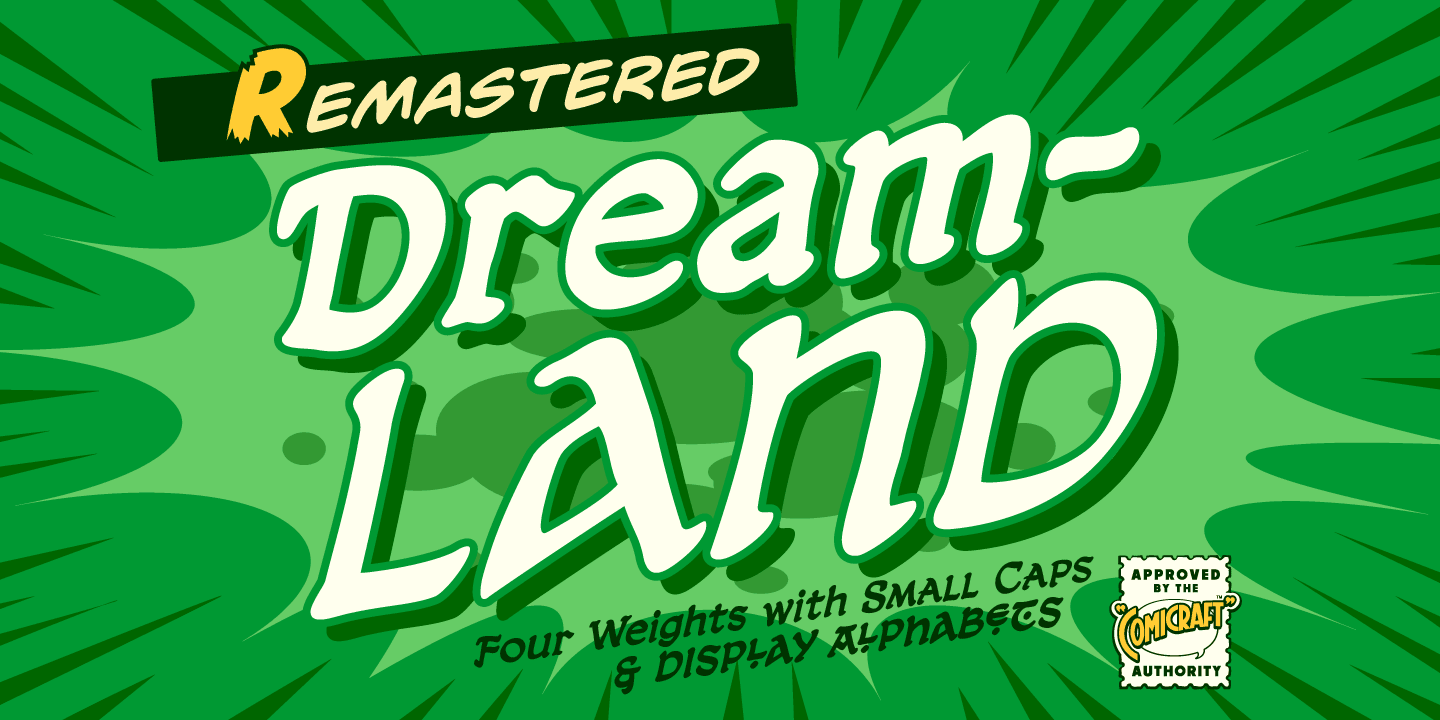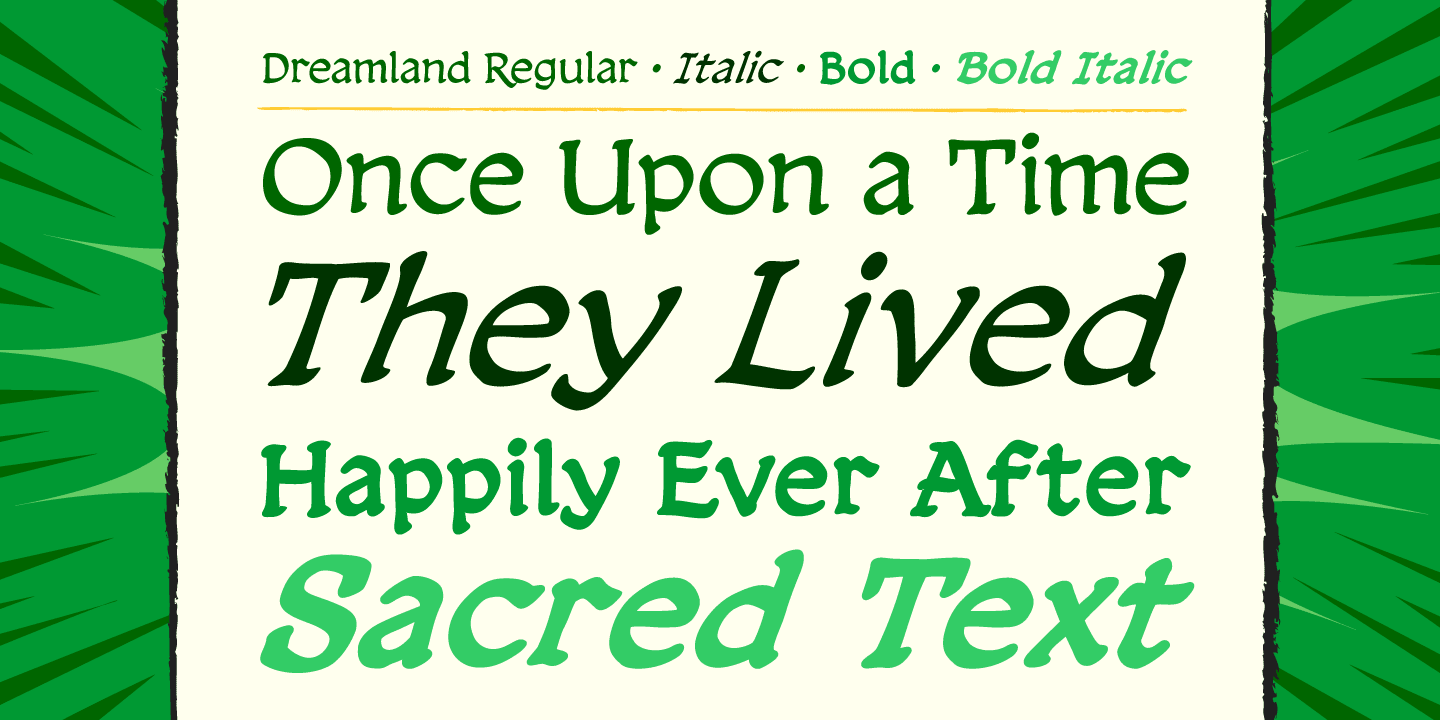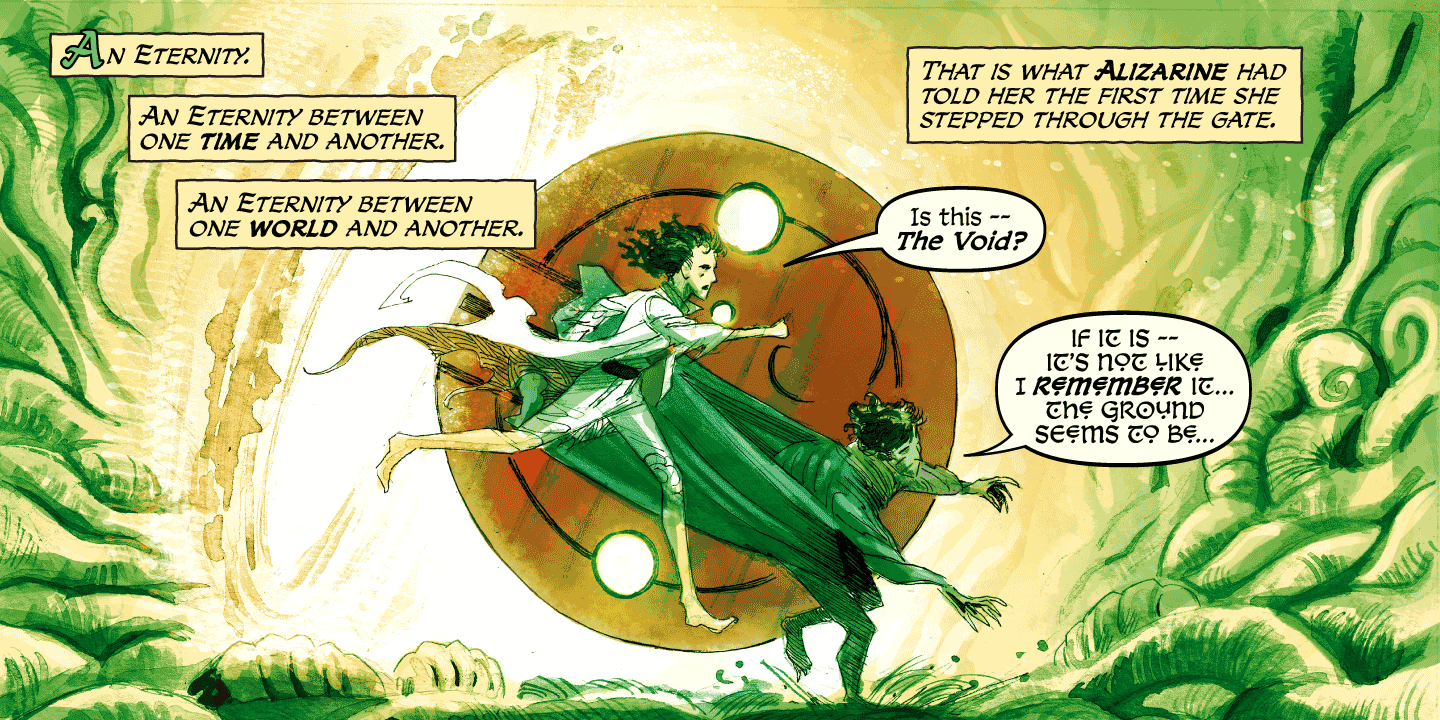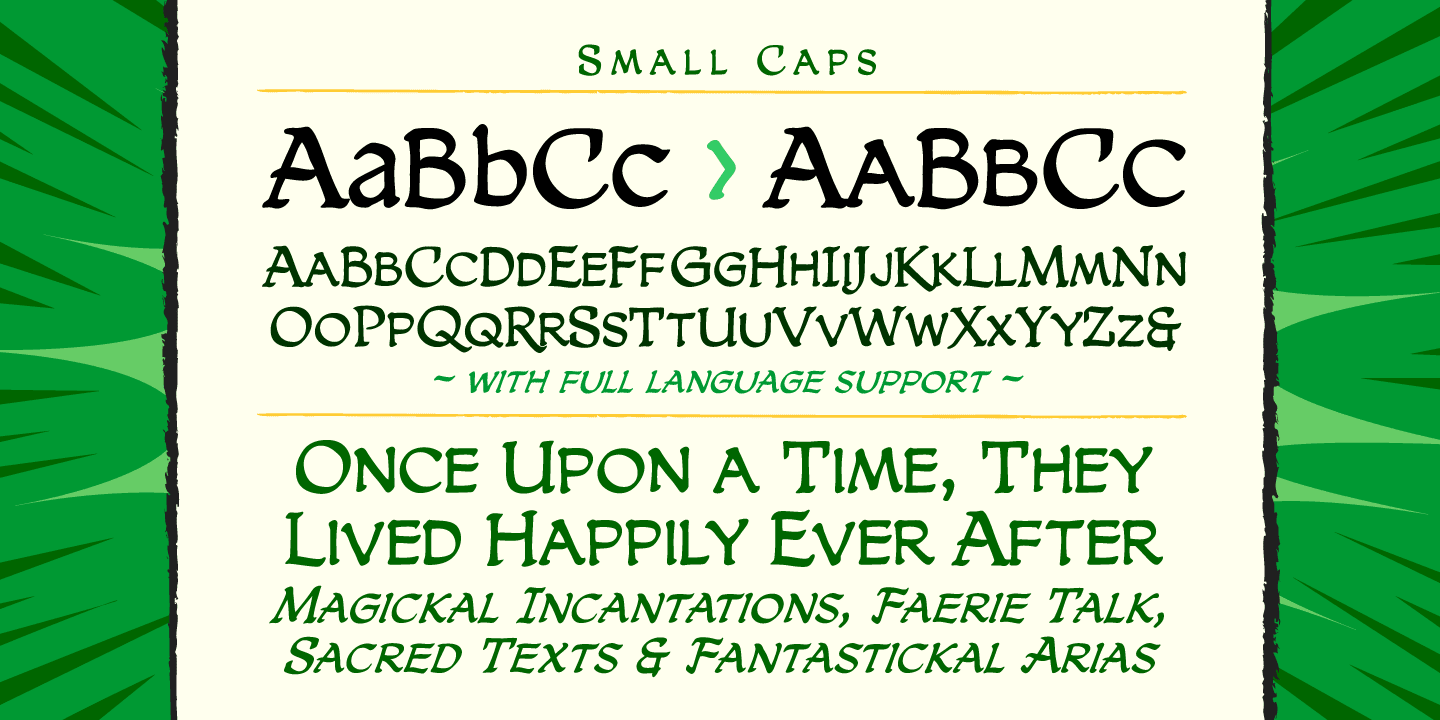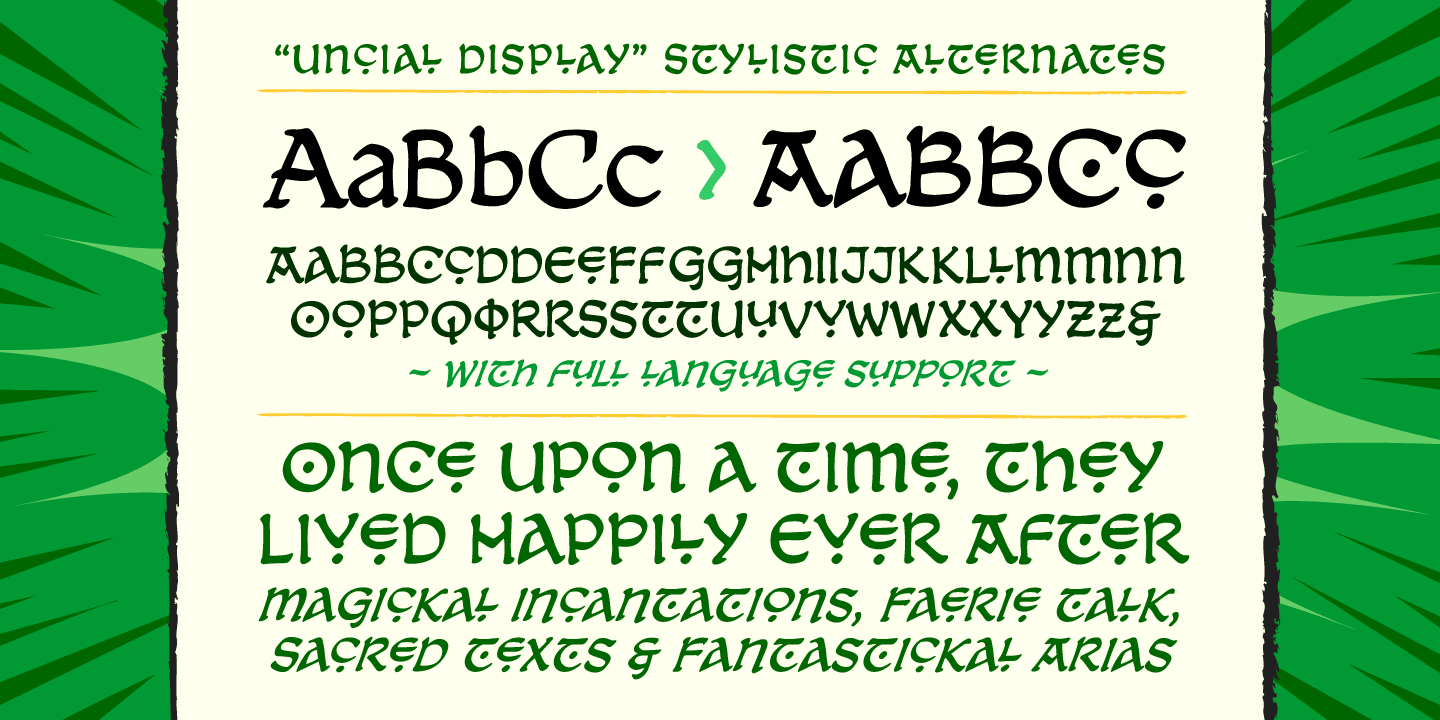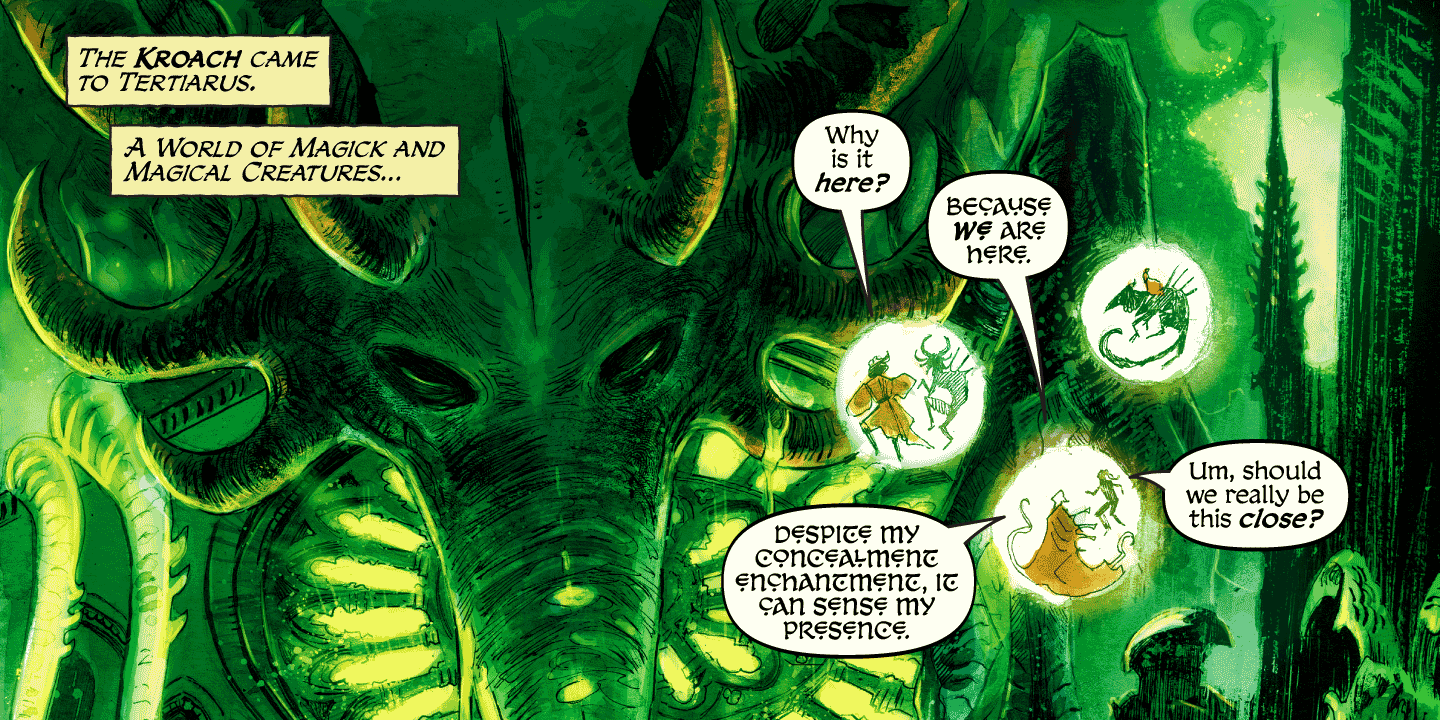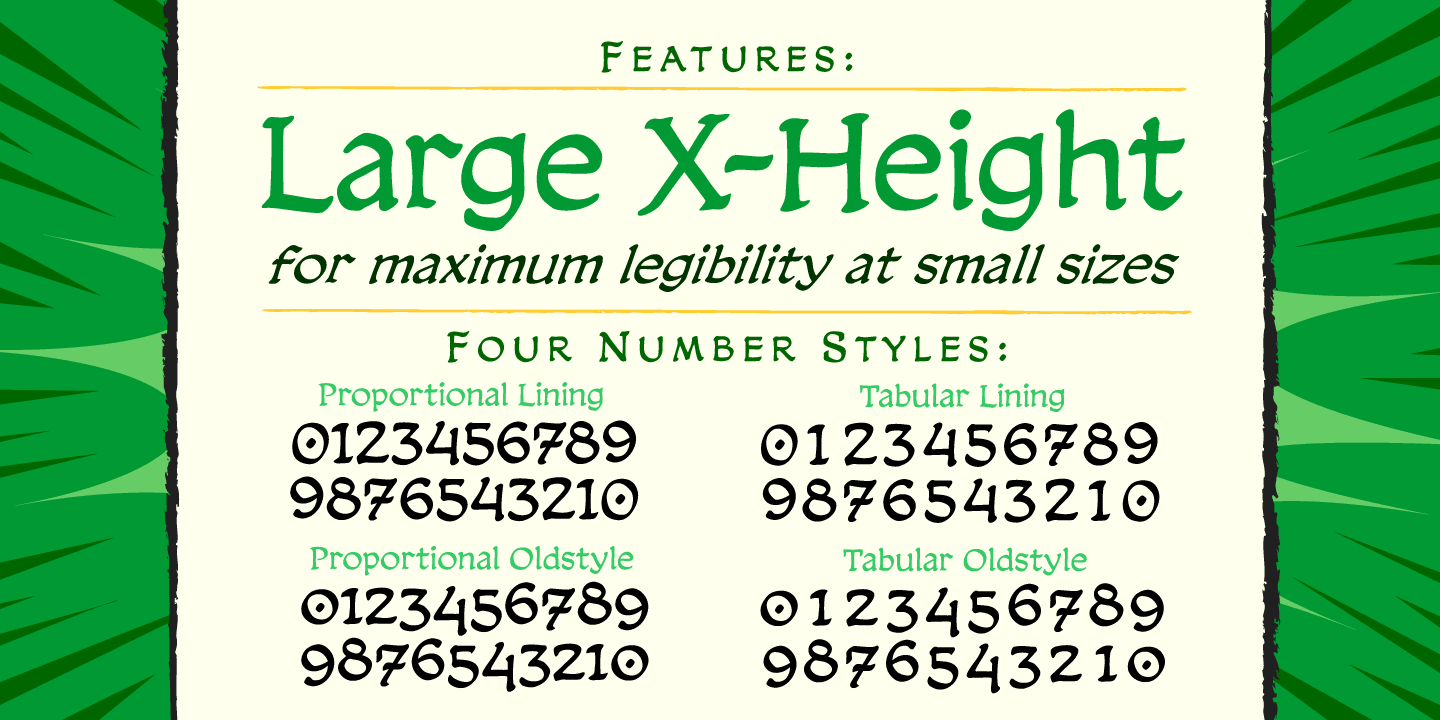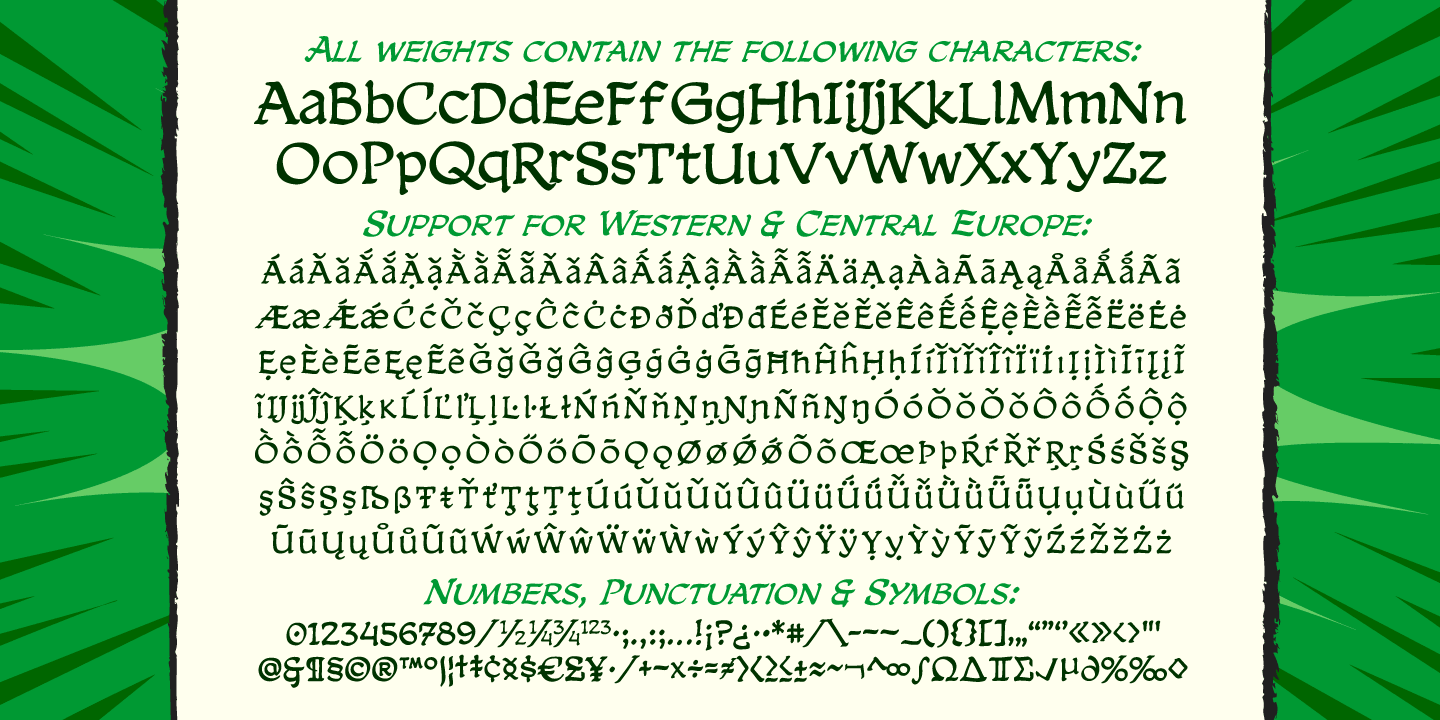
Dreamland
Font Family by Comicraft Fonts
Ring-bearers across Middle Earth will kiss their Sorceror's Stones when they catch sight of this magickal collection of fonts!
Now remastered with complete alphabets of Small Caps and Uncial Display mode, DREAMLAND is ready to cast all sorts of Incantations, Faerie talk, Books of Magic, Sacred Texts and Fantastickal Arias.
Artwork from Ask For Mercy by Richard Starkings & Abigail Jill Harding